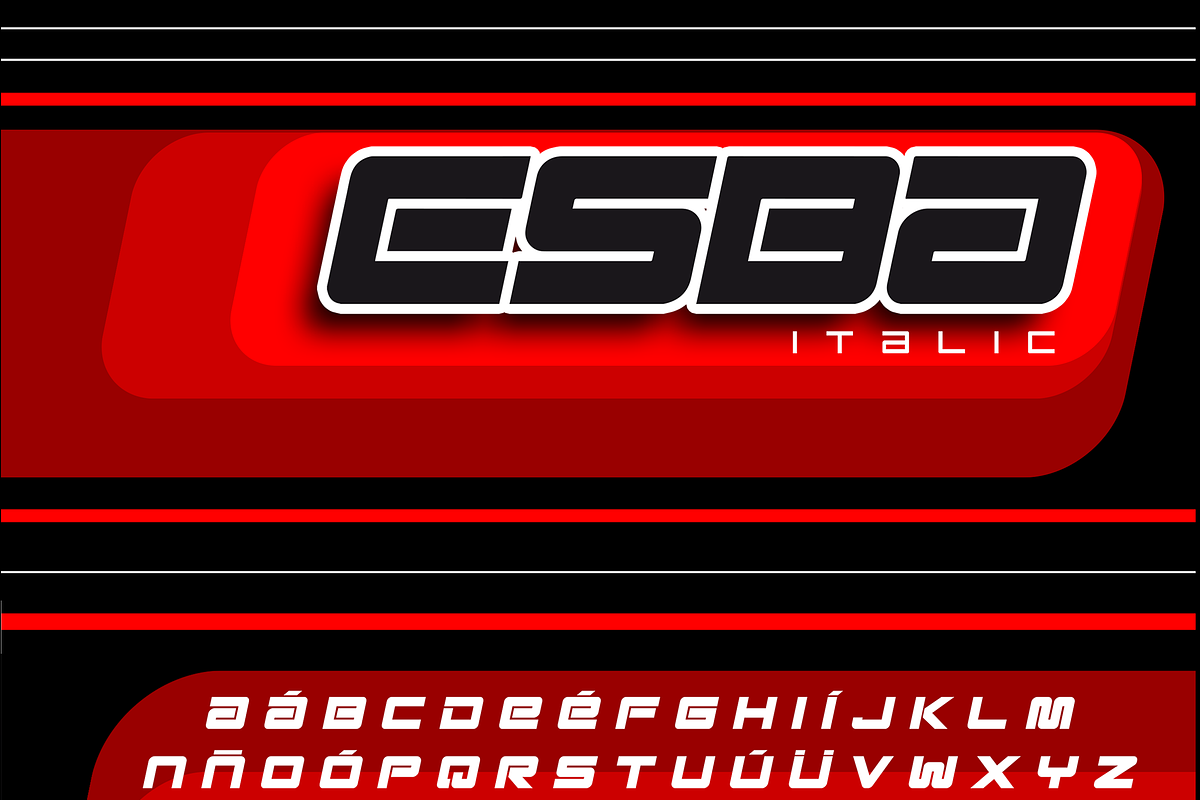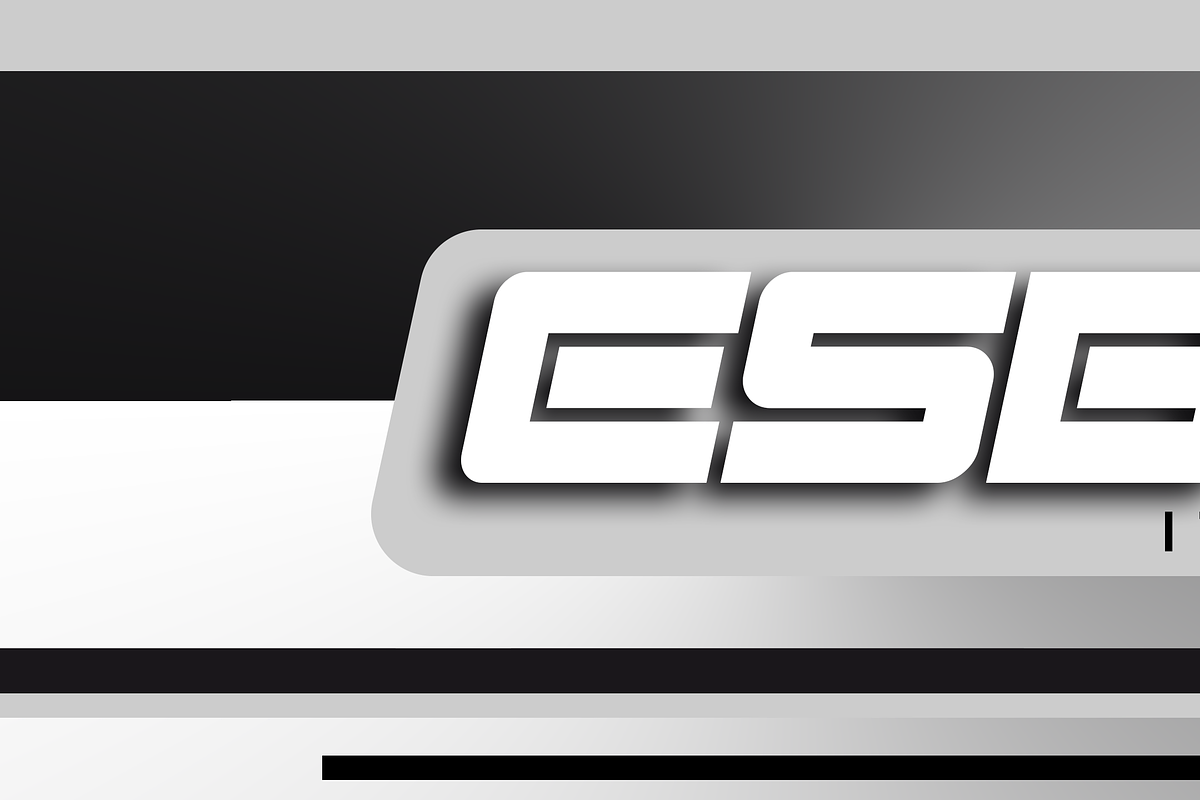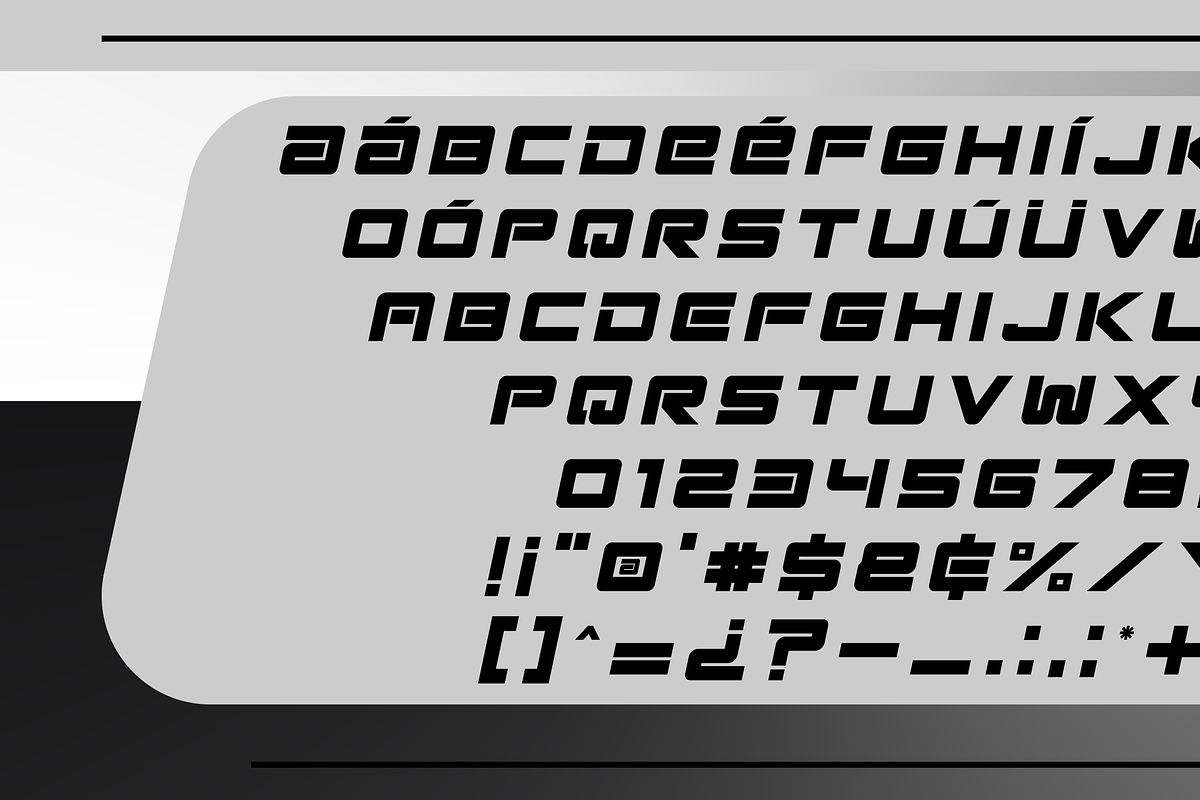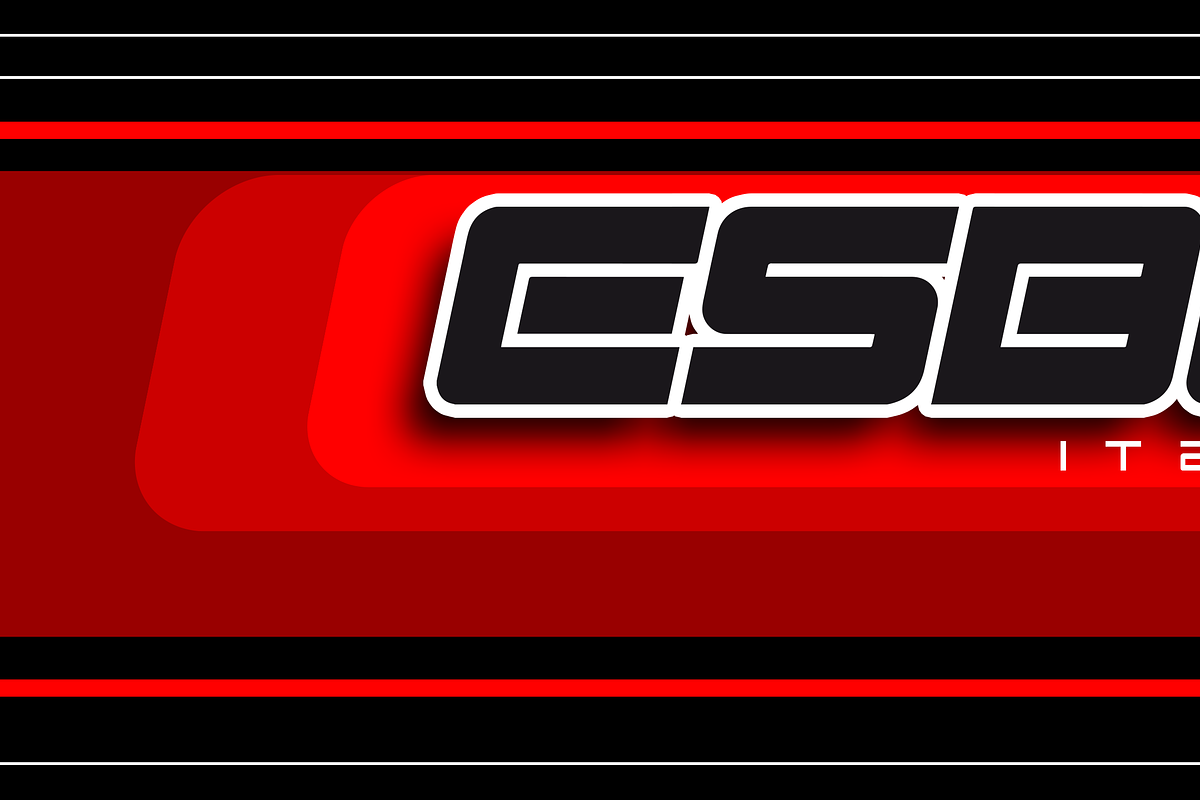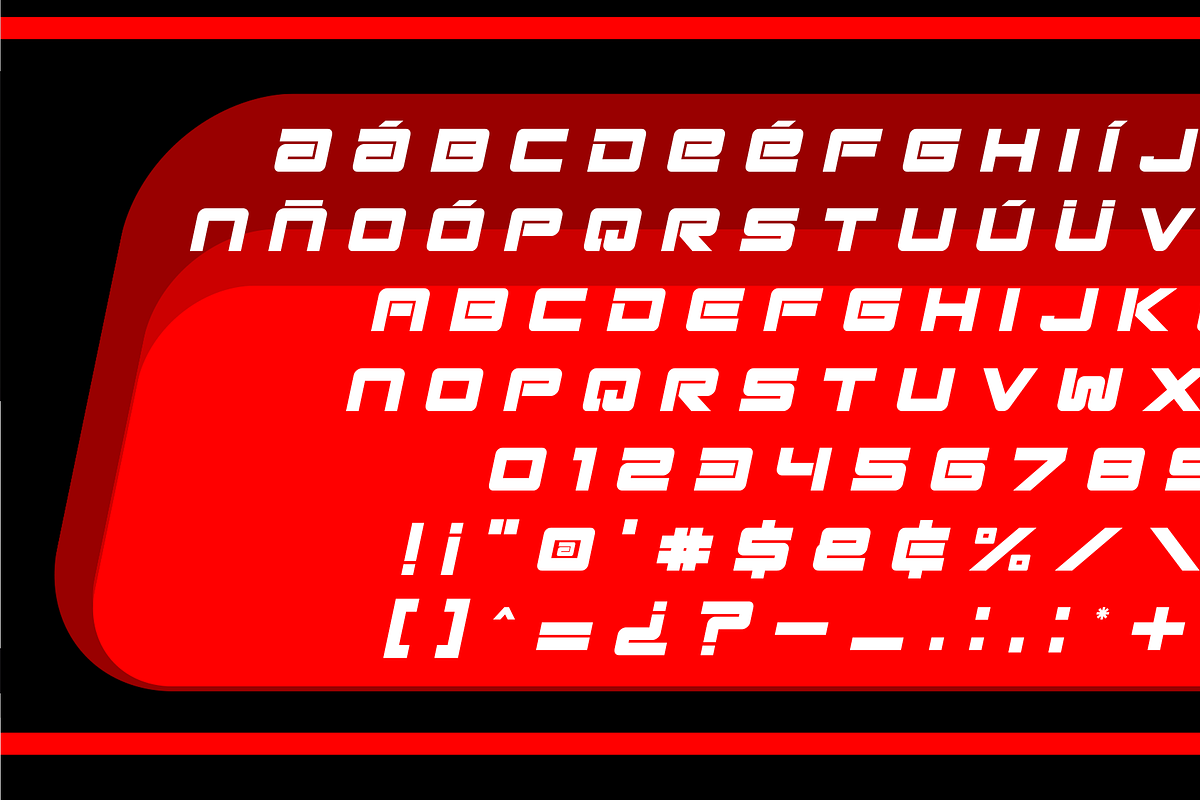
Esba - Italic
- " E S B A - I T A L I C " F o n t This Font contains 100 characters, including uppercase, lowercase, numbers and symbols.
Why Esba - Italic is worth a look
Esba - Italic by Qbotype Fonts fits naturally into Branding, posters, packaging, typography.